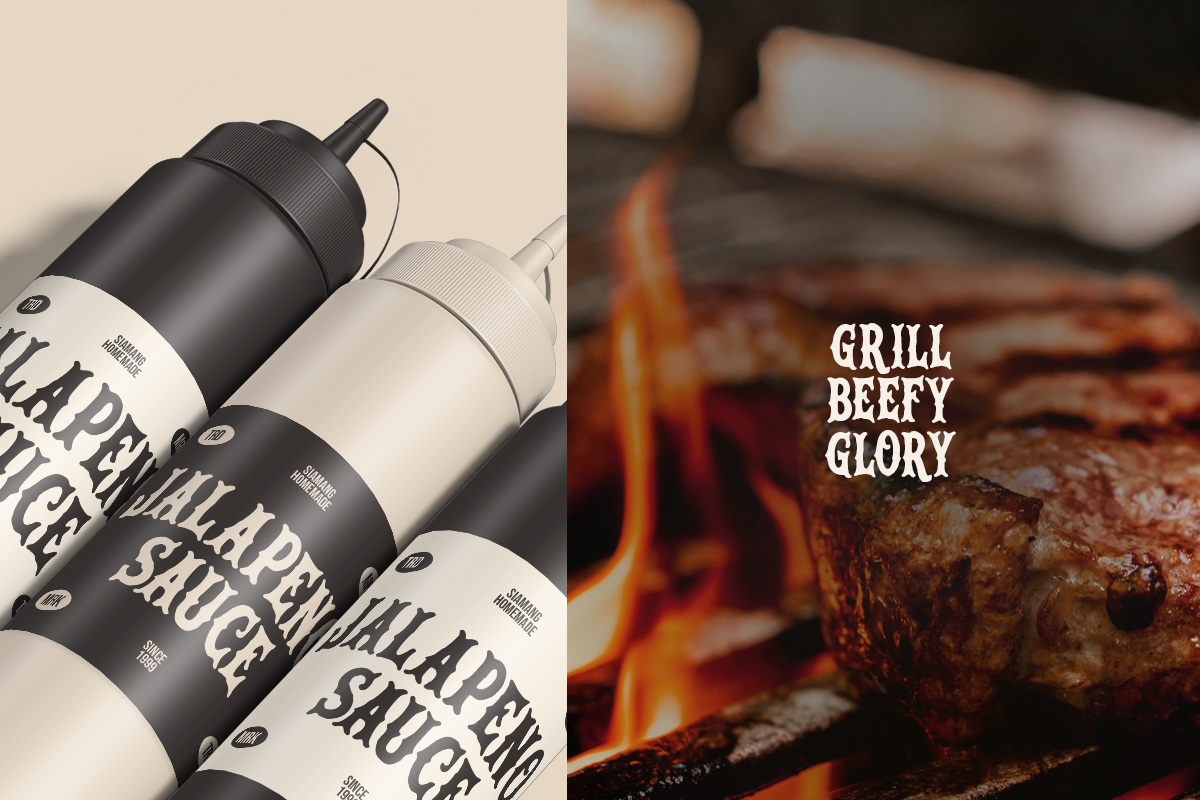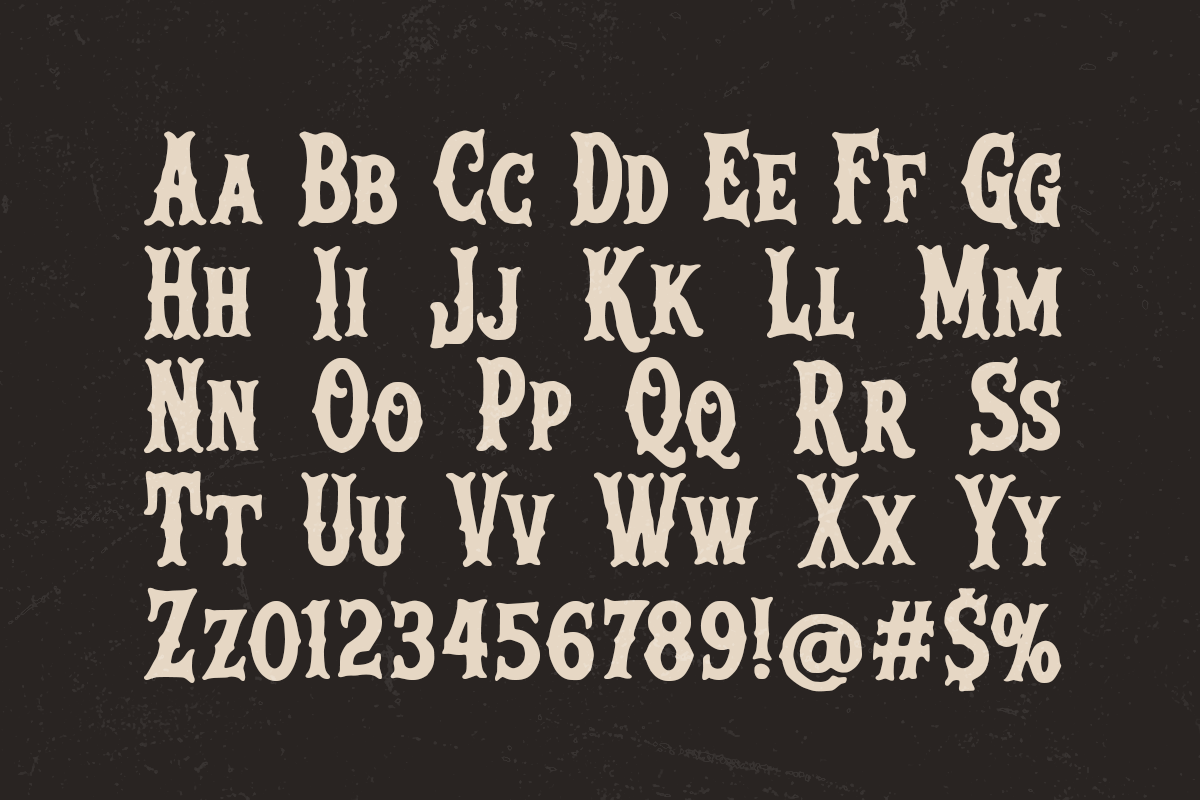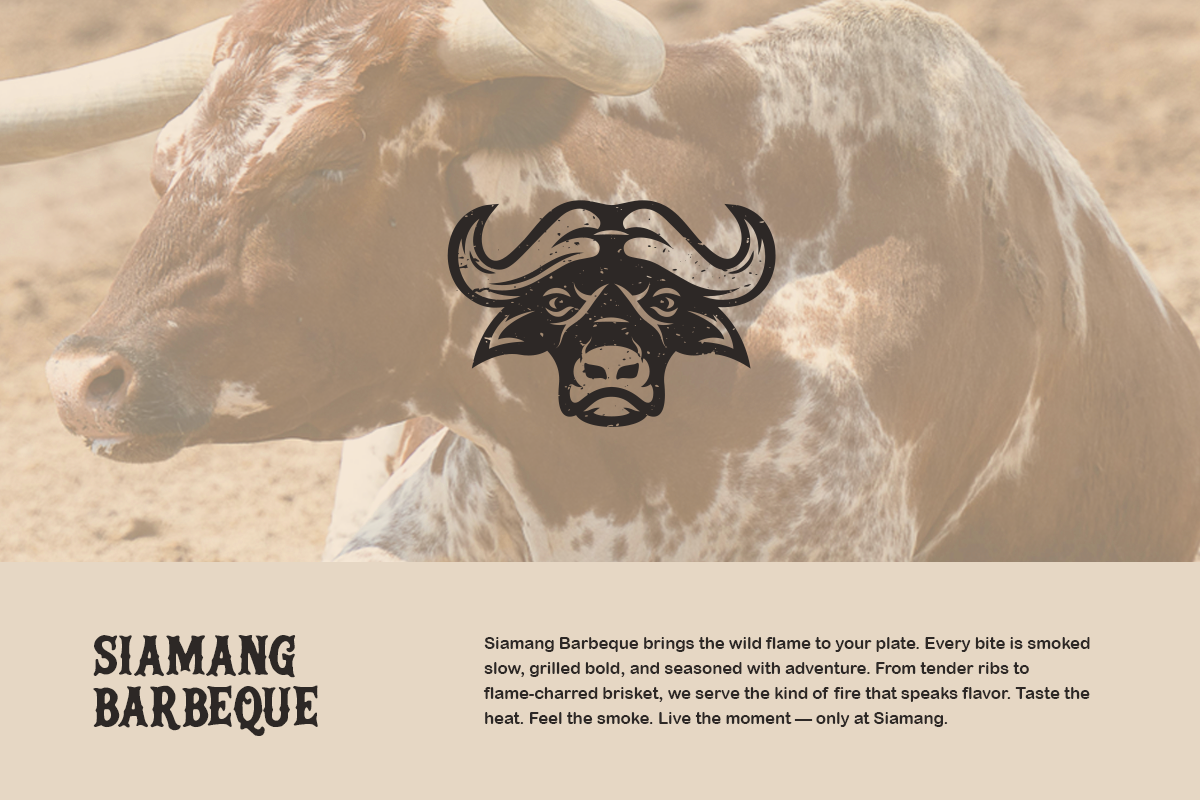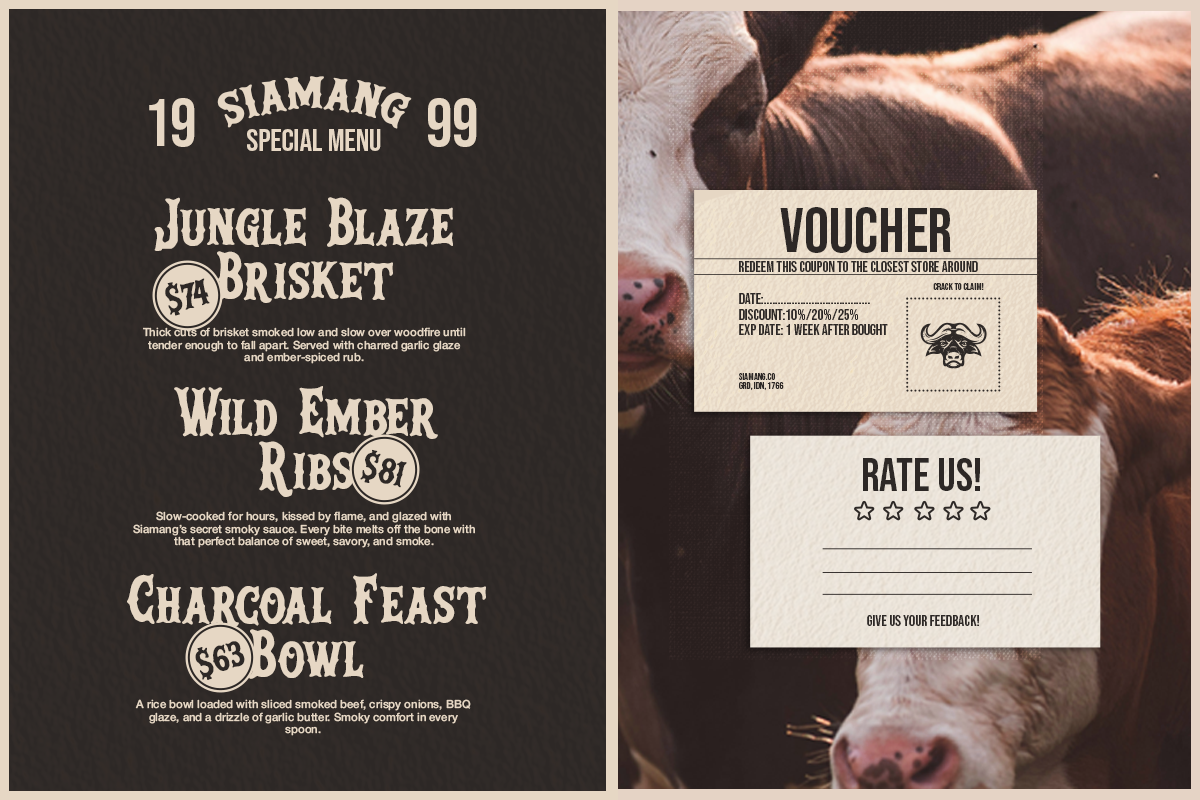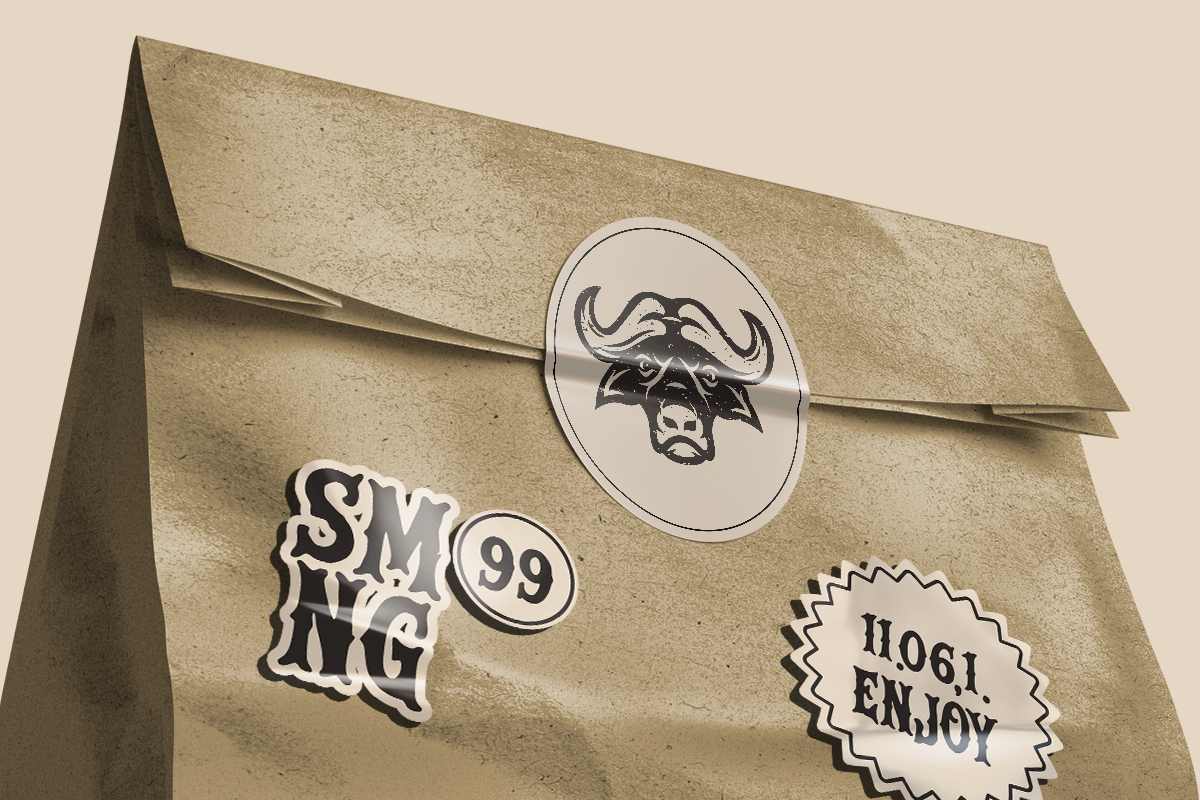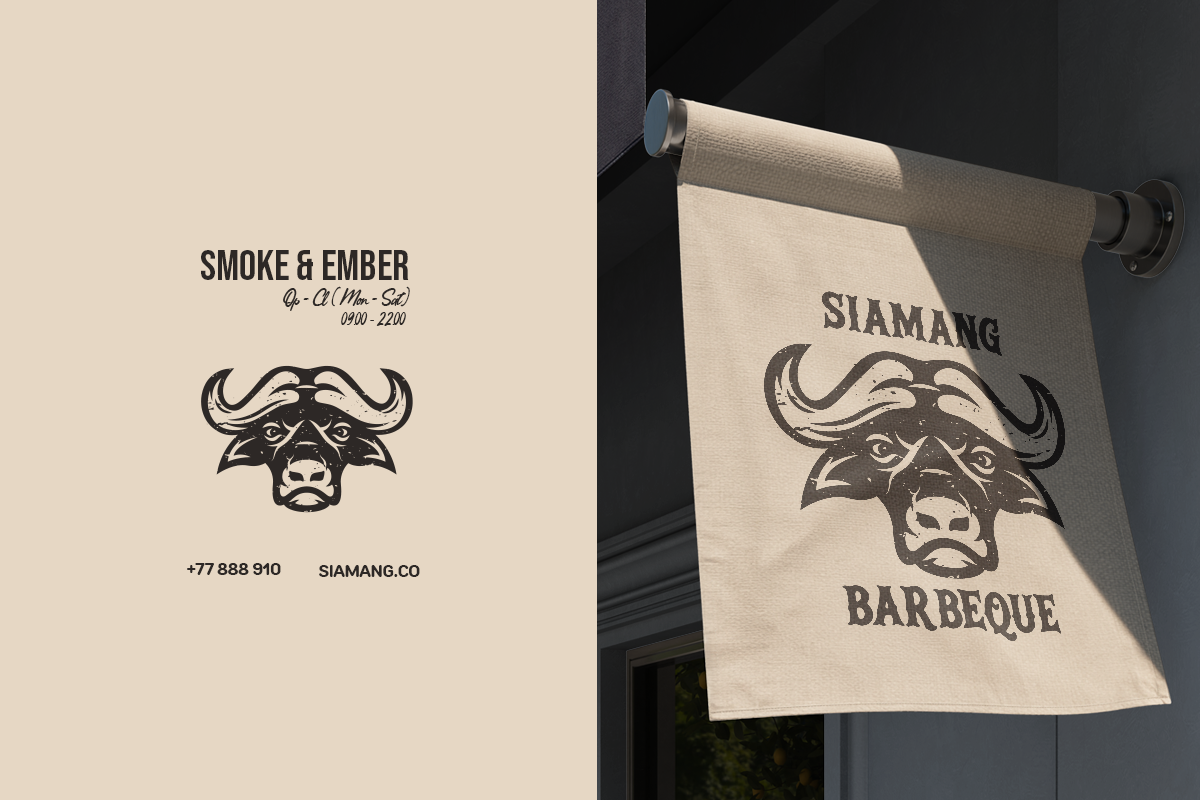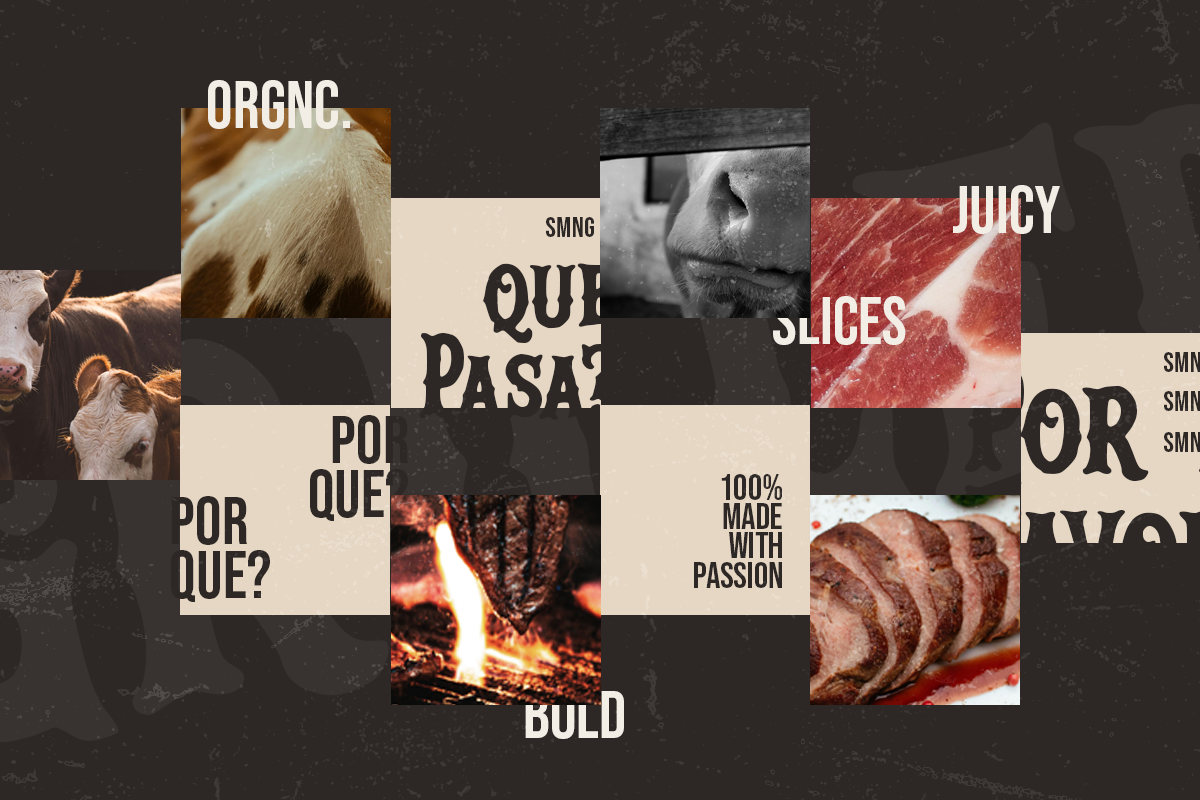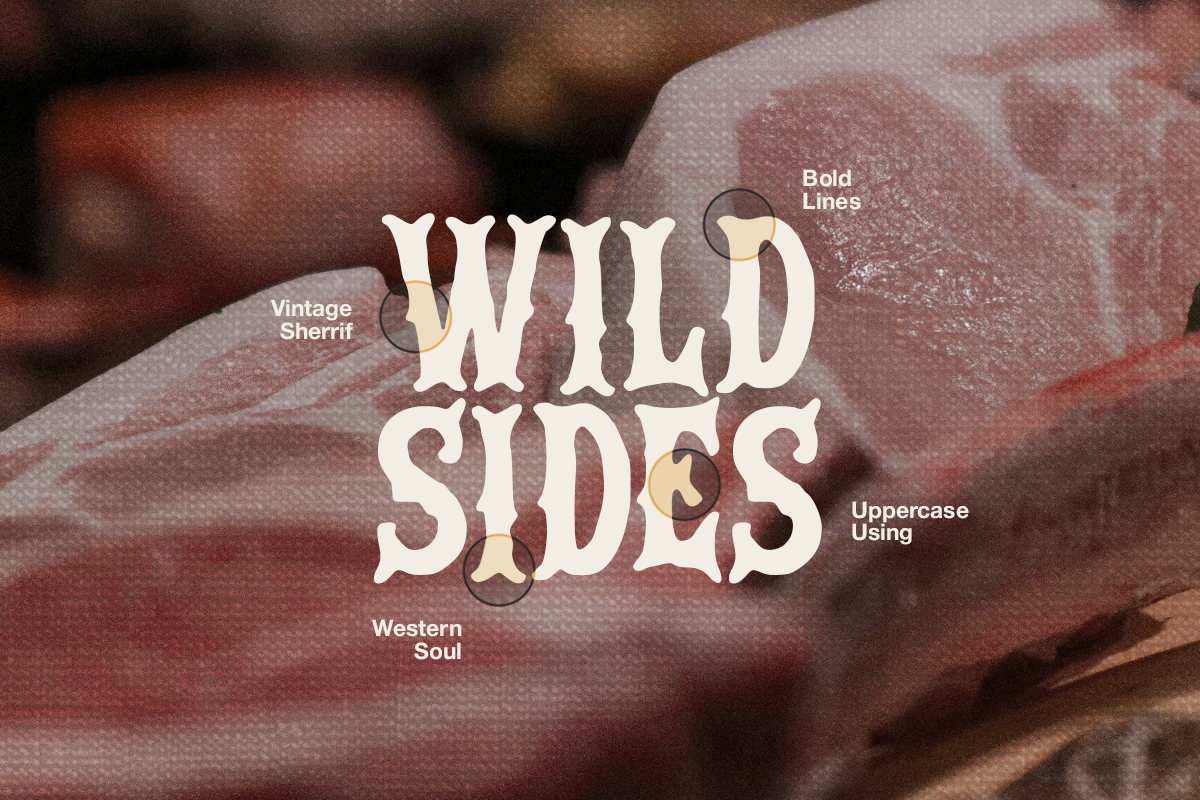
Rock South - Vintage Western Display
Rock South is a bold vintage western display font inspired by rugged woodcuts, cowboy-era lettering, and classic Americana charm. Its strong serif forms and rustic textures bring an authentic handcrafted feel, perfect for creating eye-catching visual identities with a wild, adventurous spirit.
This font comes in 1 style: Regular, featuring uppercase, lowercase, numerals, punctuation, and unique textured characters that enhance the western aesthetic. Ideal for barbeque branding, signage, outdoor themes, packaging, posters, and any design that needs a raw, western-savvy look.
- 1 Style: Regular
- Full Character Set: Uppercase, lowercase, numbers, symbols, and punctuation